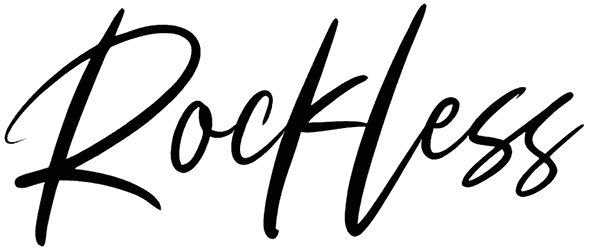
Rockless Font
Let’s remit your design a cool and urban feel and impress your viewers. This modern handwritten font, named Rockless, includes refreshing and distinct letters that can be an entertaining show for varied projects. This versatile font will be a nice promotion for a lot of projects such as posters, banners, apparel, mugs, and so on.